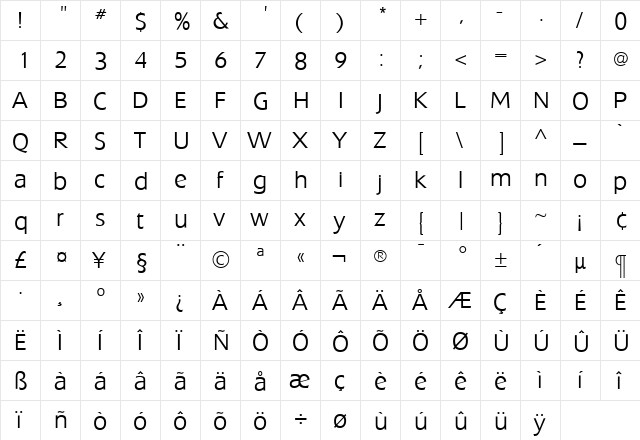
ExtensionLight Roman
Design Context for ExtensionLight Typeface
ExtensionLight offers clean, dependable letterforms without strong stylistic allegiance, making it a practical choice for designers who need flexibility. Its slender proportions lend an understated elegance to any composition.